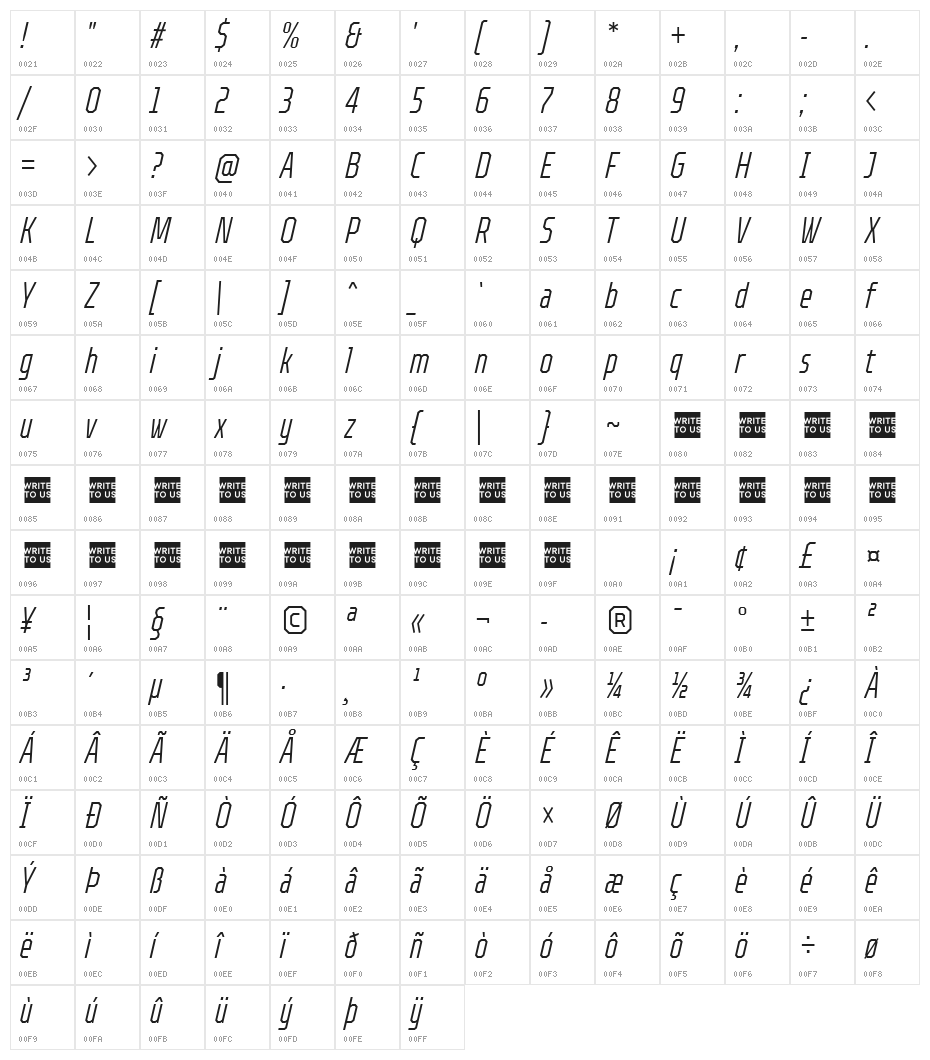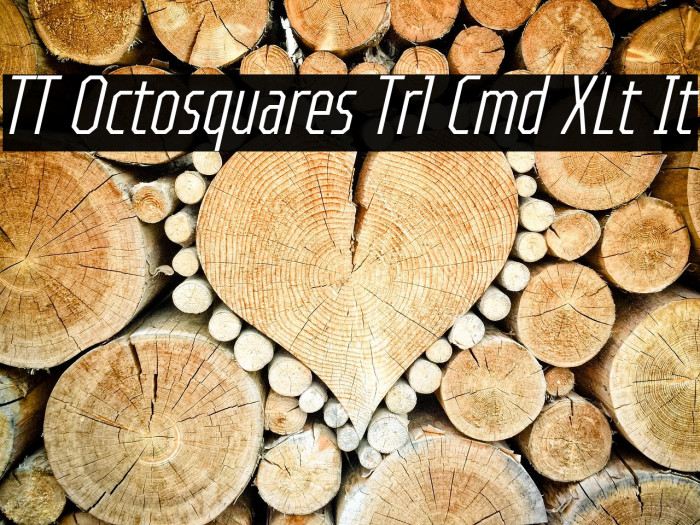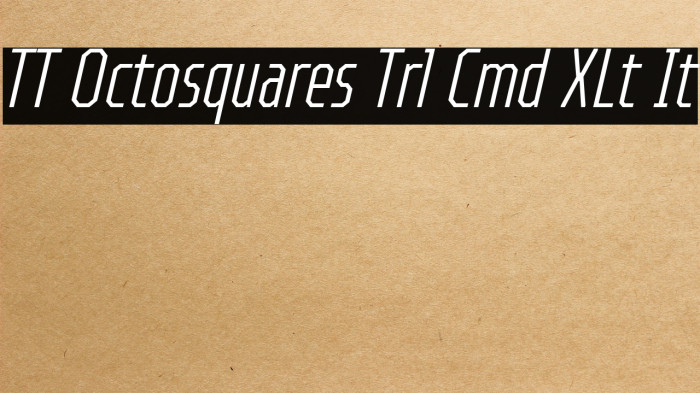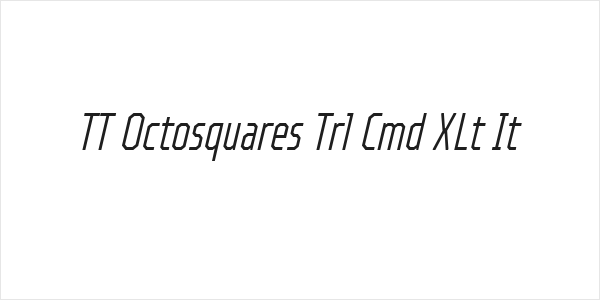
TT Octosquares Trl Cmd XLt It Font
TT Octosquares Trl Cmd XLt It Description
This font features a modern, geometric design with a distinct angular style. The characters are slightly condensed, giving it a sleek and compact appearance. The italic nature of the font adds a dynamic and forward-moving feel, while the consistent stroke width maintains a uniform look. The characters are well-spaced, ensuring readability even at smaller sizes. The font's unique style makes it suitable for contemporary design projects, where a futuristic or tech-inspired aesthetic is desired.
| Use Case | Logos, Headlines, Digital Interfaces |
| Proposed Projects | Ideal for tech branding, modern advertising, futuristic posters, and digital interfaces. |